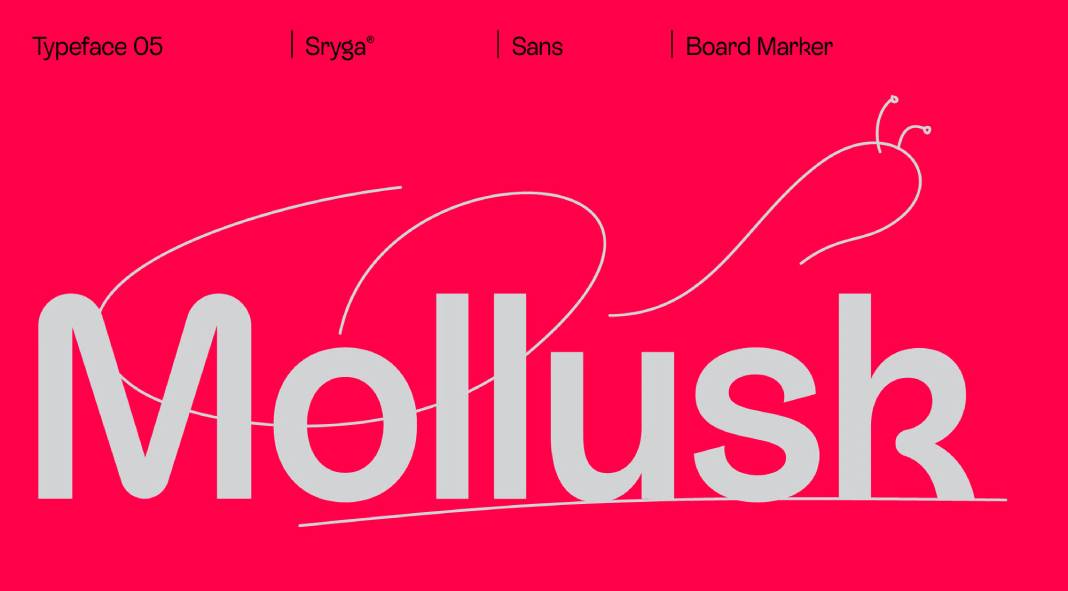
The Mollusk Font Family, a Friendly Twist on Modern Grotesque.
Are you in search of a font that exudes warmth and character while maintaining an elegant and contemporary look? Look no further than the Mollusk font family by Pande Sujana of the renowned foundry, Sryga. Mollusk is more than just a typeface; it’s a unique blend of friendly aesthetics and modern sensibilities, making it an ideal choice for a wide range of design applications. Inspired by the strokes of a board marker, Mollusk is a versatile font that brings a touch of personality to your projects.
Unveiling Mollusk: A Modern Grotesque with a Twist
The Mollusk font family is a breath of fresh air in the world of typefaces. It takes the modern grotesque style and adds a charming twist, making it a standout choice for designers looking to make their designs more approachable and inviting.
A Font Inspired by Creativity
The story behind Mollusk’s design is as creative as the font itself. It draws inspiration from the smooth, flowing strokes of a board marker. These markers are often associated with creativity, brainstorming, and freeform expression. Mollusk captures the essence of these strokes, making it an ideal choice for projects that require a touch of creativity and originality.
Versatility at Its Best
One of the most remarkable features of Mollusk is its versatility. It seamlessly bridges the gap between formal and friendly, making it suitable for a wide range of applications. Whether you’re working on branding, web design, advertising, or any other creative project, Mollusk is up to the task.
The Personality of Mollusk
Mollusk isn’t just a font; it’s a personality that can breathe life into your designs. Its friendly and inviting demeanor sets the stage for a positive user experience. It’s the kind of font that instantly connects with the audience, creating a sense of approachability that’s essential in today’s design landscape.
Timeless Elegance
While Mollusk is undoubtedly friendly and approachable, it doesn’t compromise on elegance. Its clean lines and well-balanced proportions give it a timeless appeal. Whether you’re designing for a contemporary brand or a more classic project, Mollusk fits the bill.
Make Mollusk Your Reliable Choice
Mollusk isn’t just a font; it’s a design companion that you can rely on. Its charm and warmth will set your projects apart from the rest, and its versatility ensures it’s a font you’ll turn to time and time again.
Elevate Your Designs with Mollusk Today
In a world saturated with fonts, Mollusk stands out as a font family that’s both distinctive and versatile. Whether you’re designing for a corporate website, a playful branding campaign, or any other creative endeavor, Mollusk can bring your ideas to life with its unique blend of modern aesthetics and friendly appeal.
So, if you’re looking to elevate your designs and create a lasting impression, it’s time to consider Mollusk by Pande Sujana and the Sryga foundry. Unleash your creativity and make your designs more welcoming and engaging with the charm of Mollusk. Upgrade your design toolkit and explore the possibilities that Mollusk has to offer – your audience will thank you for it!